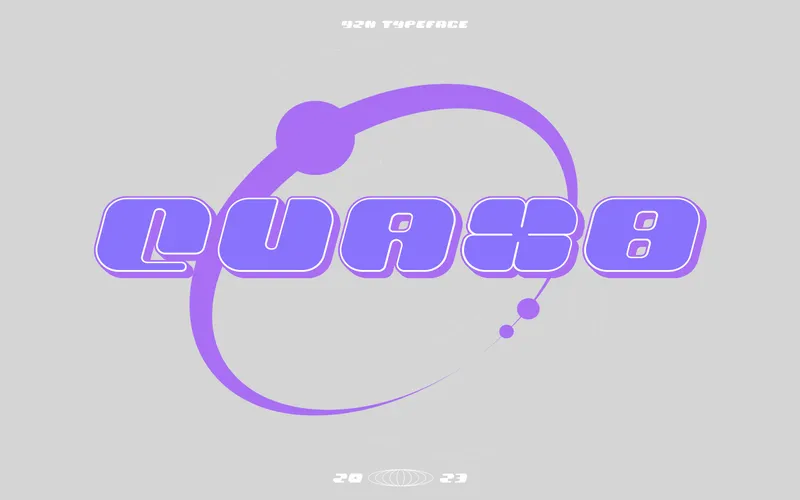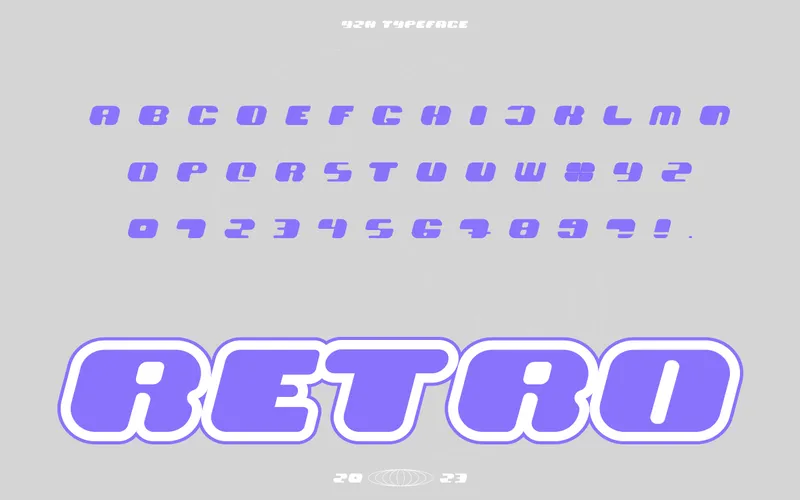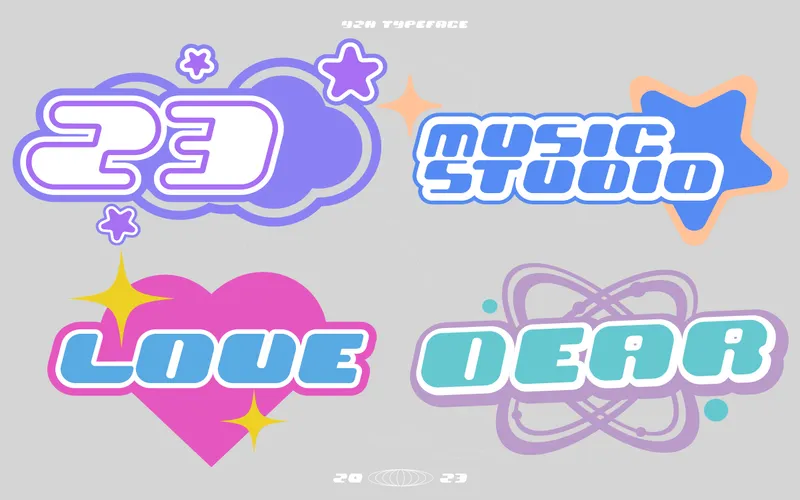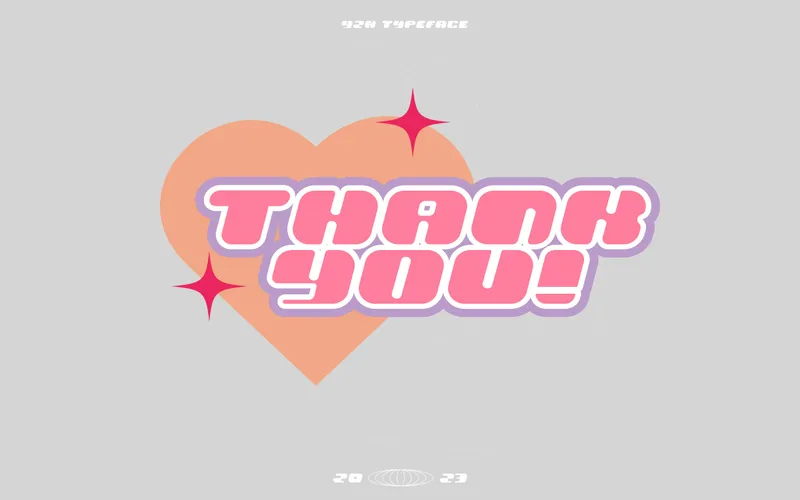
Quax8 – Free Y2K Font
A Free Y2K Font For Nostalgic Retro Vibes
Add a bold, nostalgic touch to your designs with Quax8 – the perfect Y2K font that infuses both retro flair and futuristic vibes into any design.
Quax8 is versatile and easy to use. It is ideal for designers looking to add a unique Y2K aesthetic to their projects.
It includes bold, futuristic letterforms that perfectly capture the retro-futuristic feel of the Y2K era, making it a fantastic choice for headings, posters, digital art, and more.
Preview Of The Free Y2K Font Quax8!
Preview Of Quax8 - Free Y2K Font
Alphabet Written With The Free Display Font - Quax8
Creative designs made using the Free Y2K Font - Quax8
THANK YOU - Written With The Display Font - Quax8